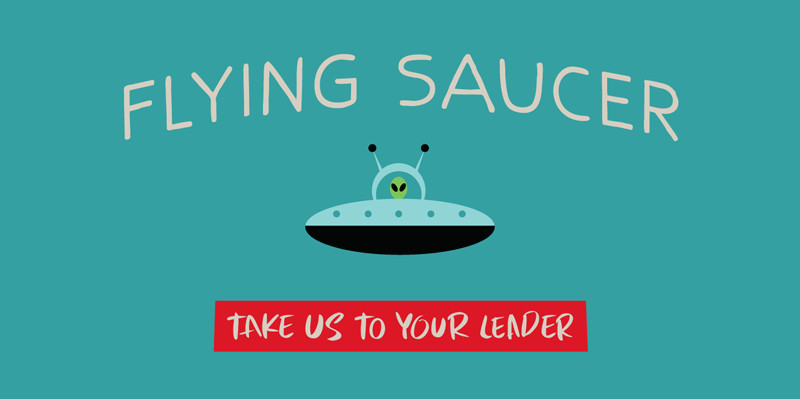
Brush Stroke
Brush Stroke Font
Brush Stroke + Bonus Font
Brush Stroke is textured brush font, contemporary approach to design, handmade natural with an less regular baseline. Suitable for use in title design. Such as apparel, invitations, books tittle, stationery design, quotes, branding, logos, greeting card, t-shirt, packaging design, poster and more.